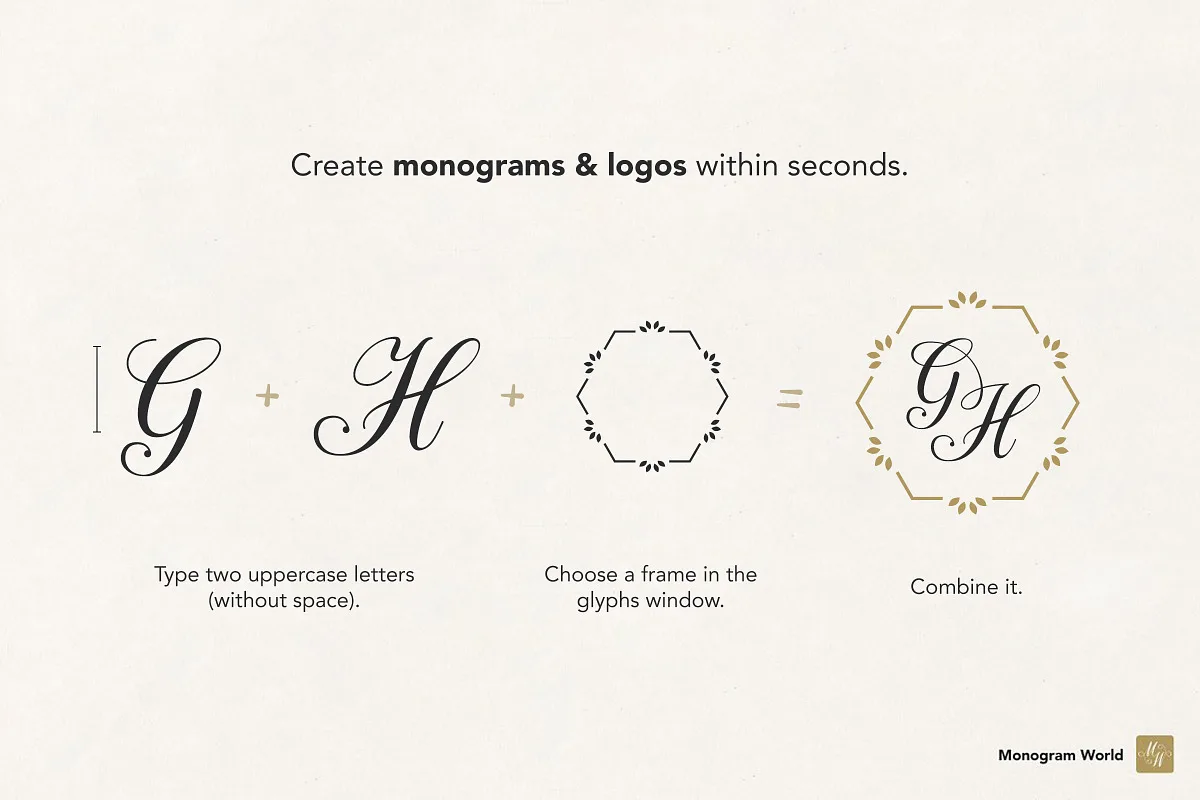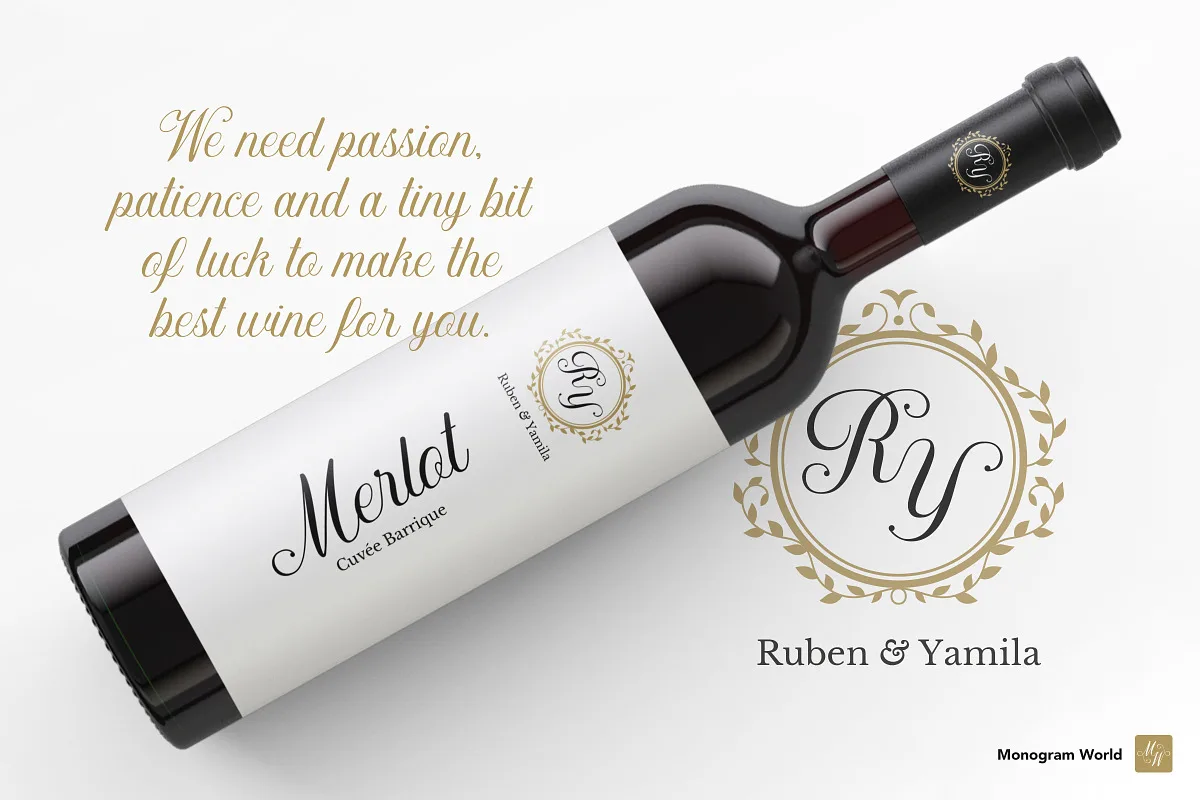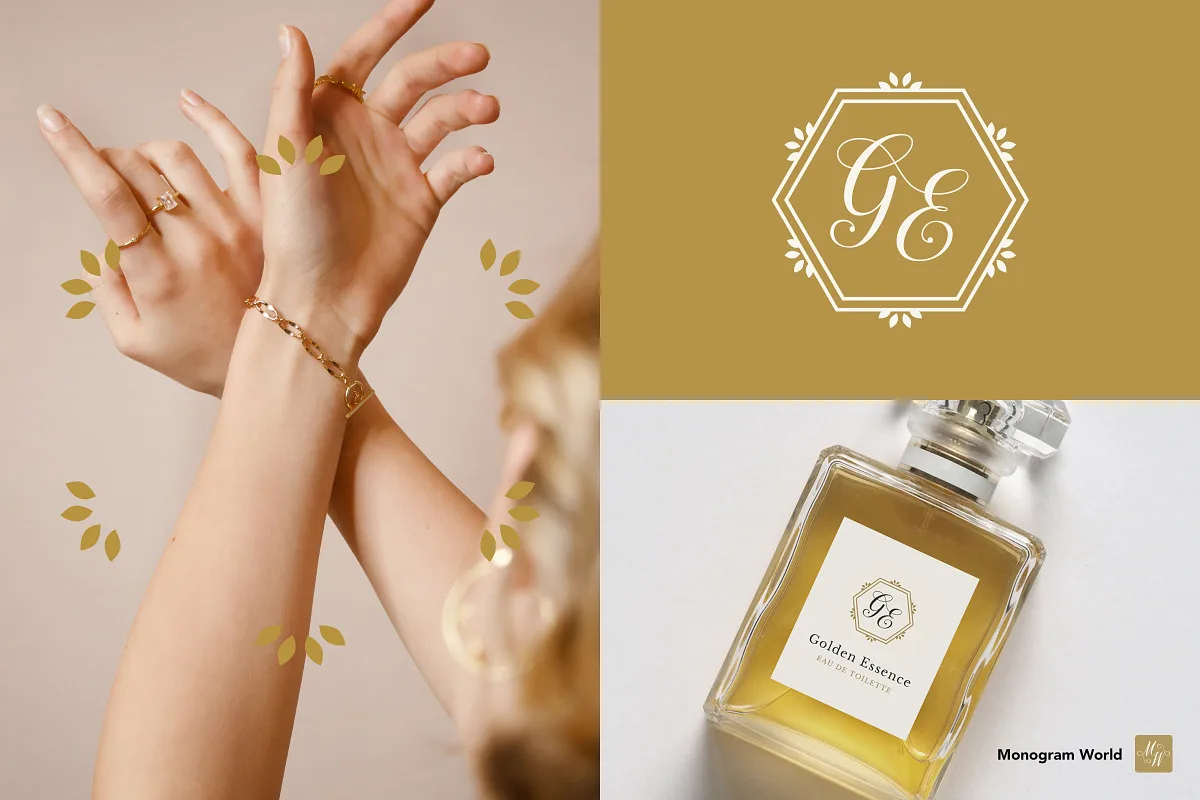
Monogramica Font
Monogramica is an elegant calligraphy typeface that includes 676 premade uppercase monograms which are easily accessible through automatic ligatures. Just type A + B and the monogram AB appears.
The font contains all two-letter combinations from AA to ZZ as real interlaced lettering artworks + 135 decorative frames. It’s like a versatile logo creator kit for any sophisticated or luxury business like e.g. fashion, jewelry, art ateliers, handicraft studios, wine & spirits, hotels & resorts or fine restaurants & bars.
It can be used for a whole branding identity, product packaging or just for single applications like embroidery, engraving or any other printed item.
The style of Monogramica is based on classic calligraphy type, and yet a bit softer & more modern because of its rounded line tops. The font has lowercase & uppercase letters, numbers, punctuation and many special characters to cover the major Western languages.